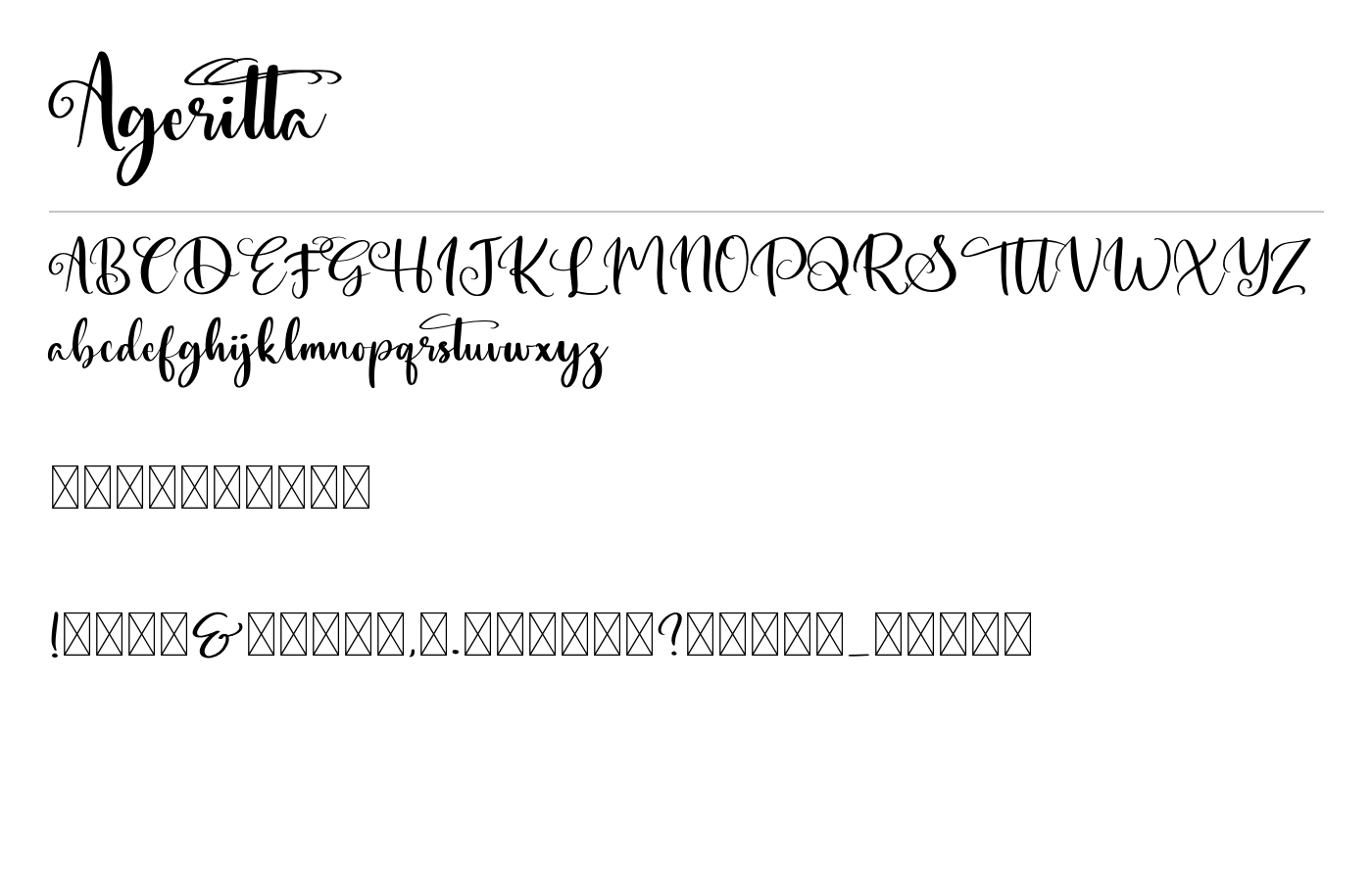
Ageritta is an elegant script font featuring smooth, flowing strokes with a handwritten charm and artistic flourishes, especially in its uppercase letters. It delivers a refined and decorative feel perfect for invitations, branding, or any design that seeks a sophisticated yet approachable style. This font works beautifully for logos, greeting cards, and stylish editorial projects where a graceful and personalized touch is desired.
Ageritta Font
About Ageritta Font
| Font family | Ageritta Font |
| Designer | Ana Natalia |